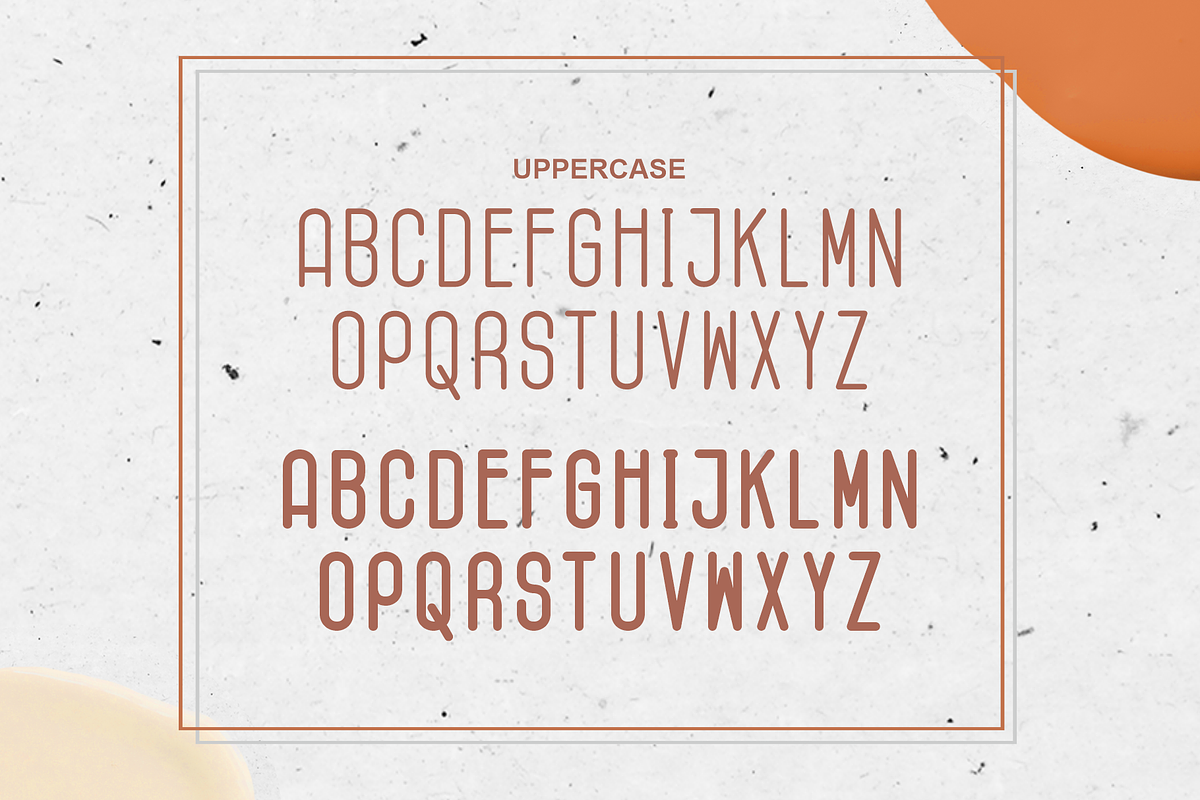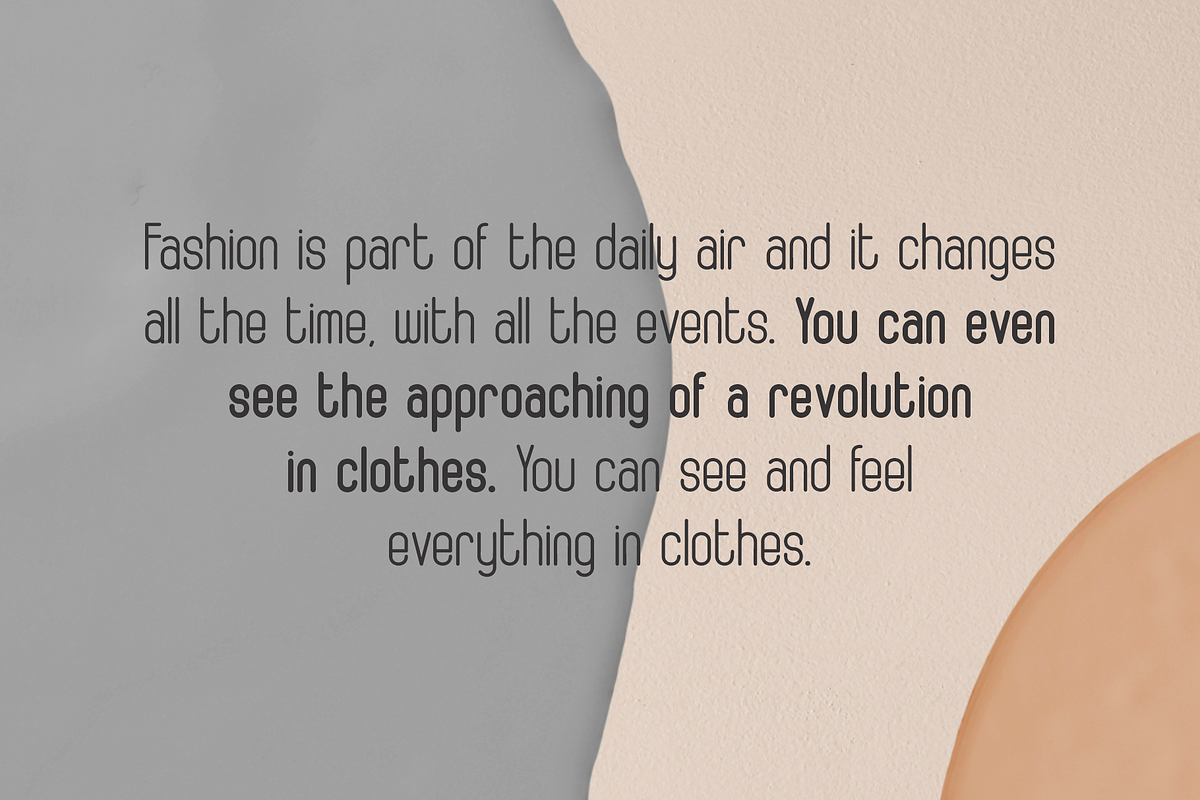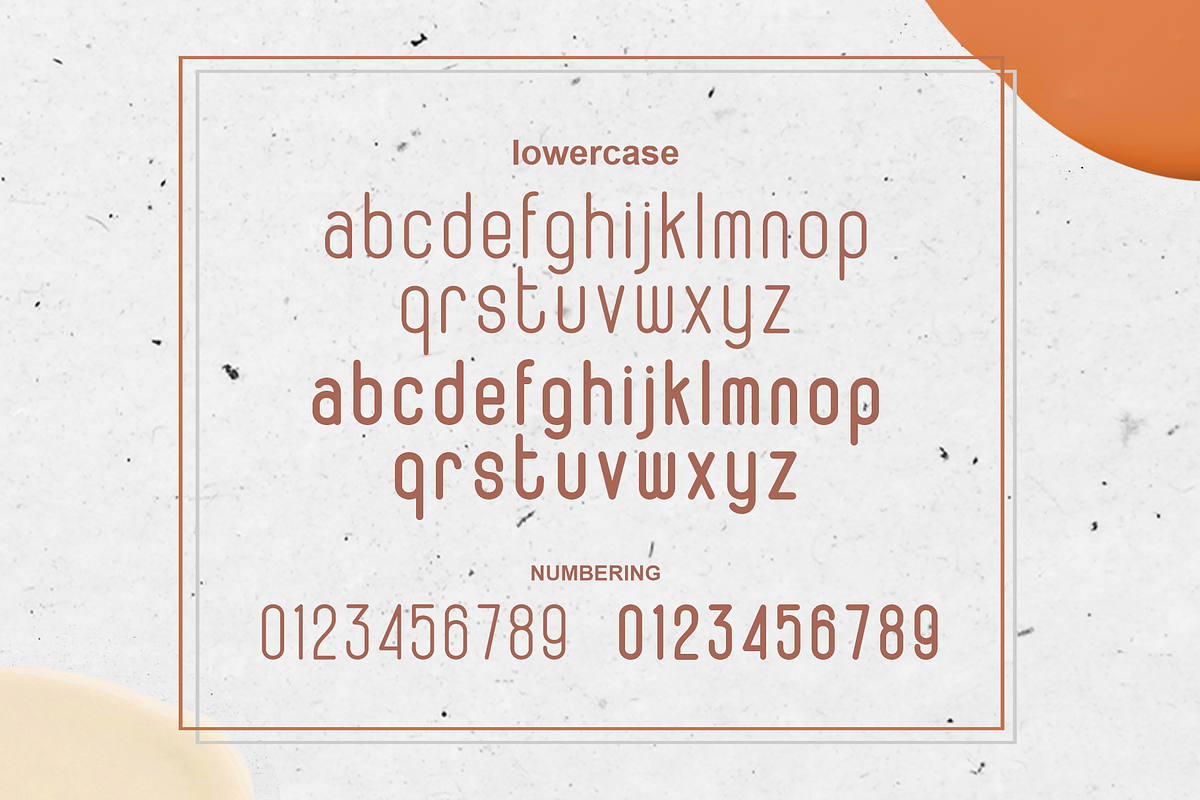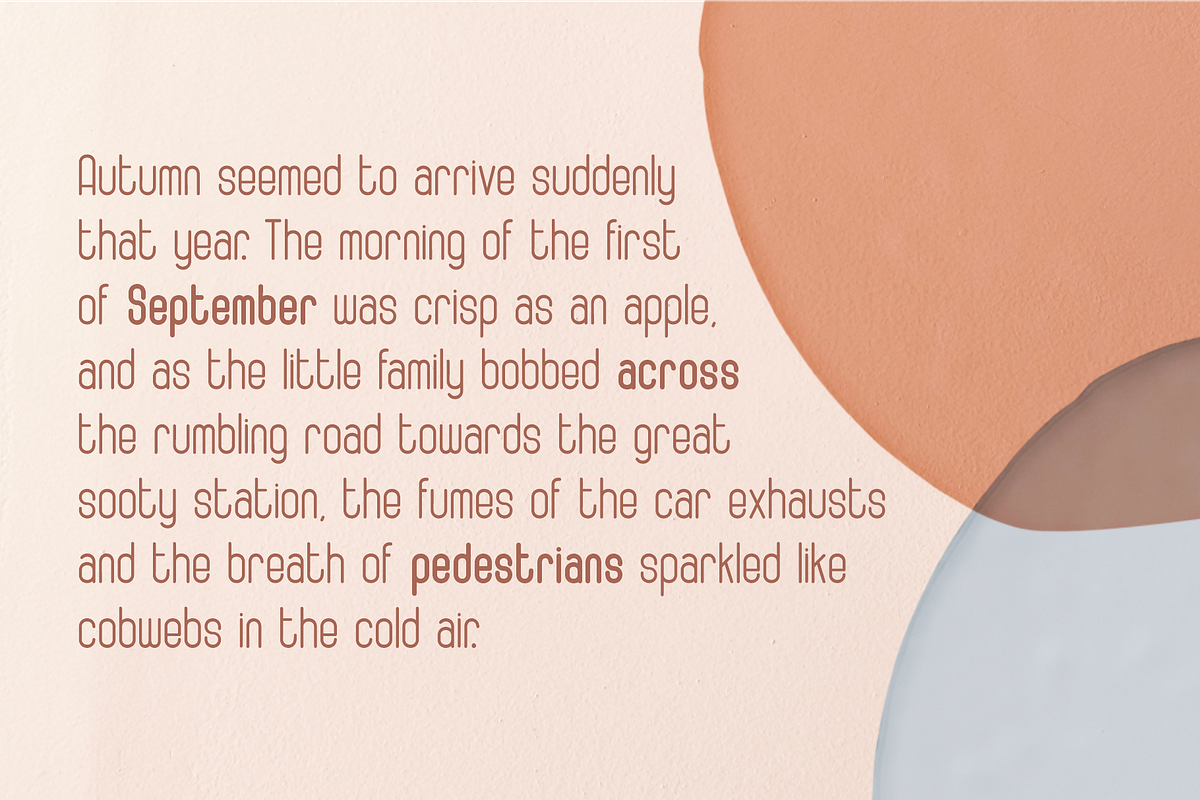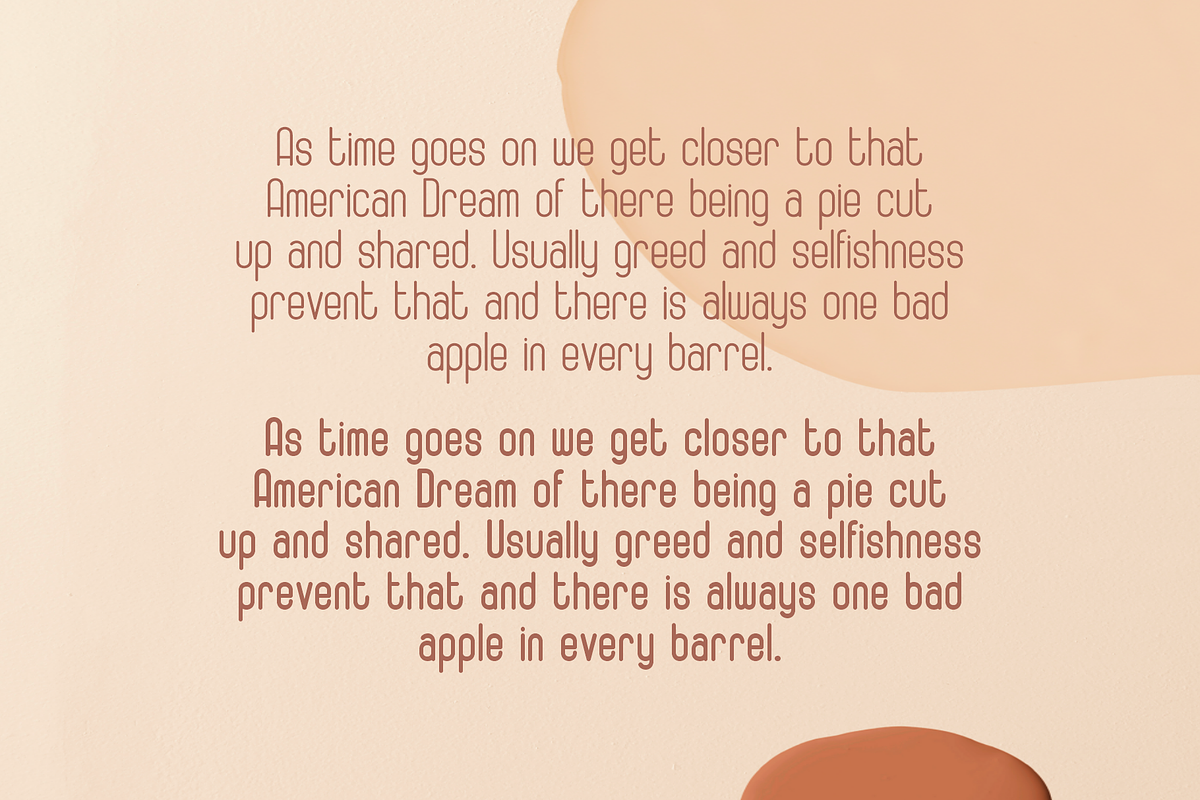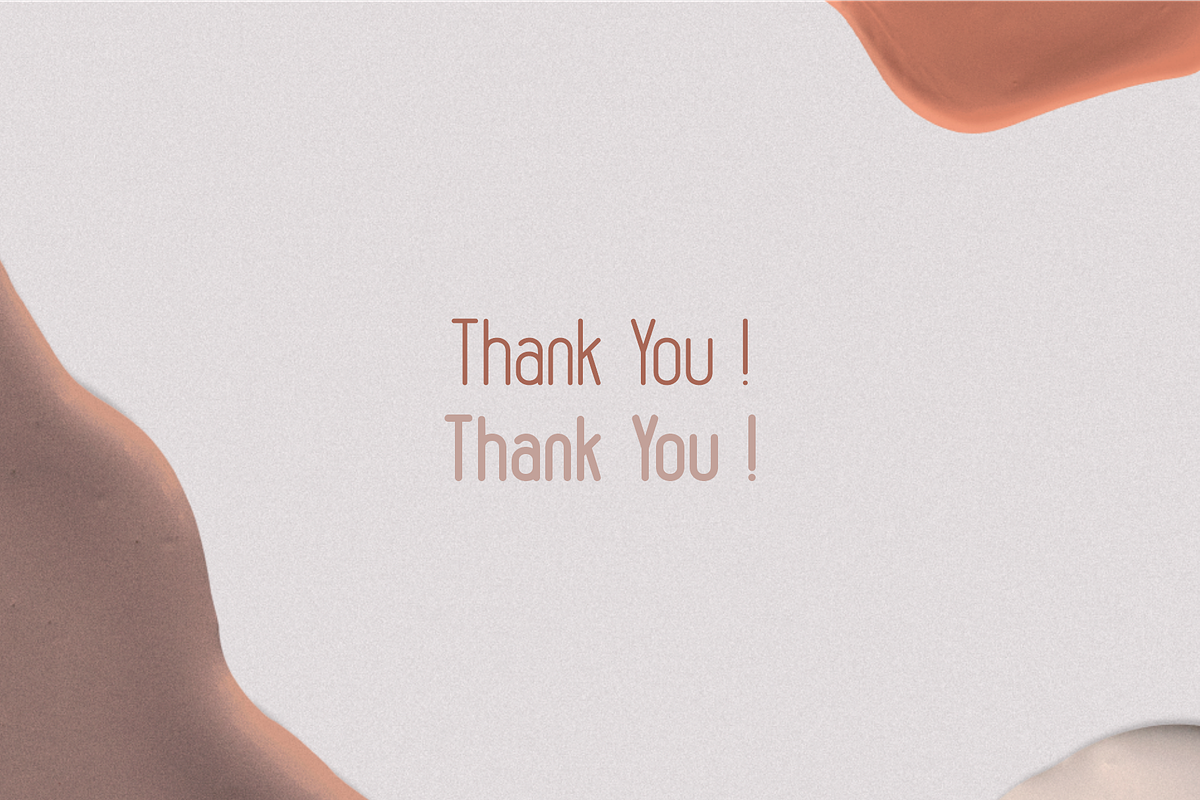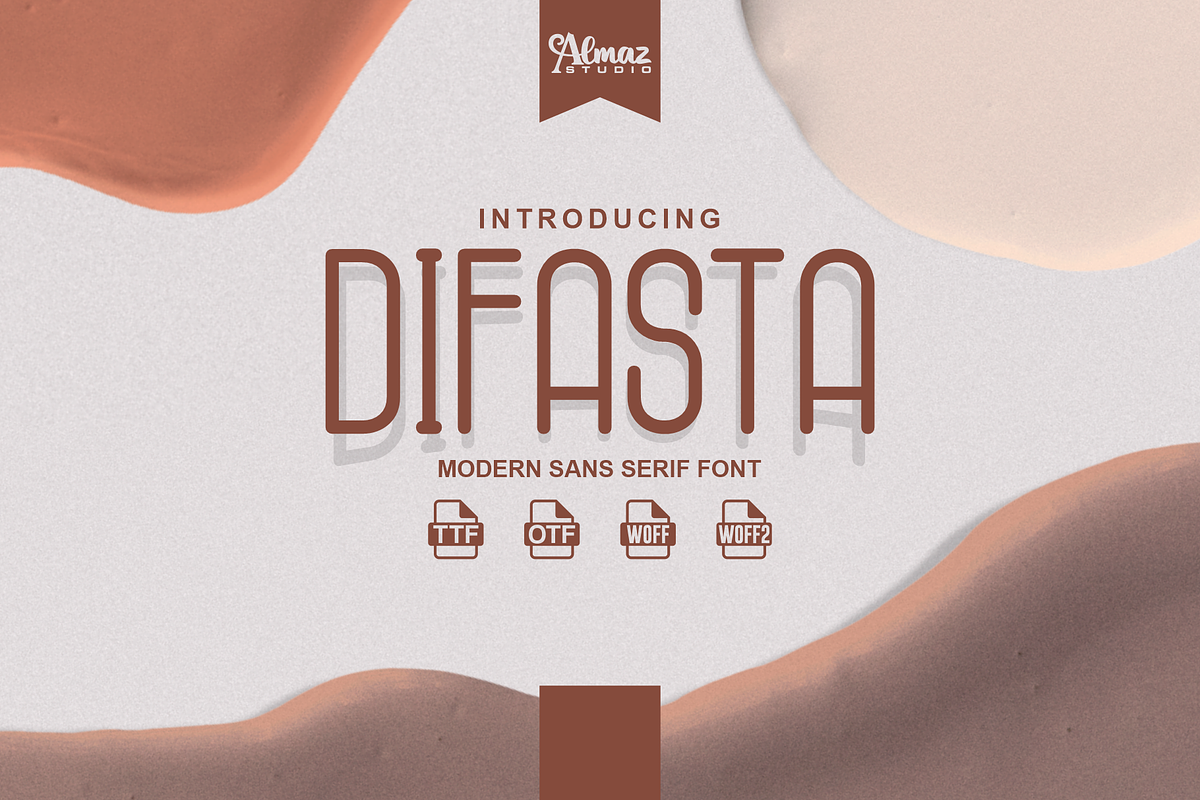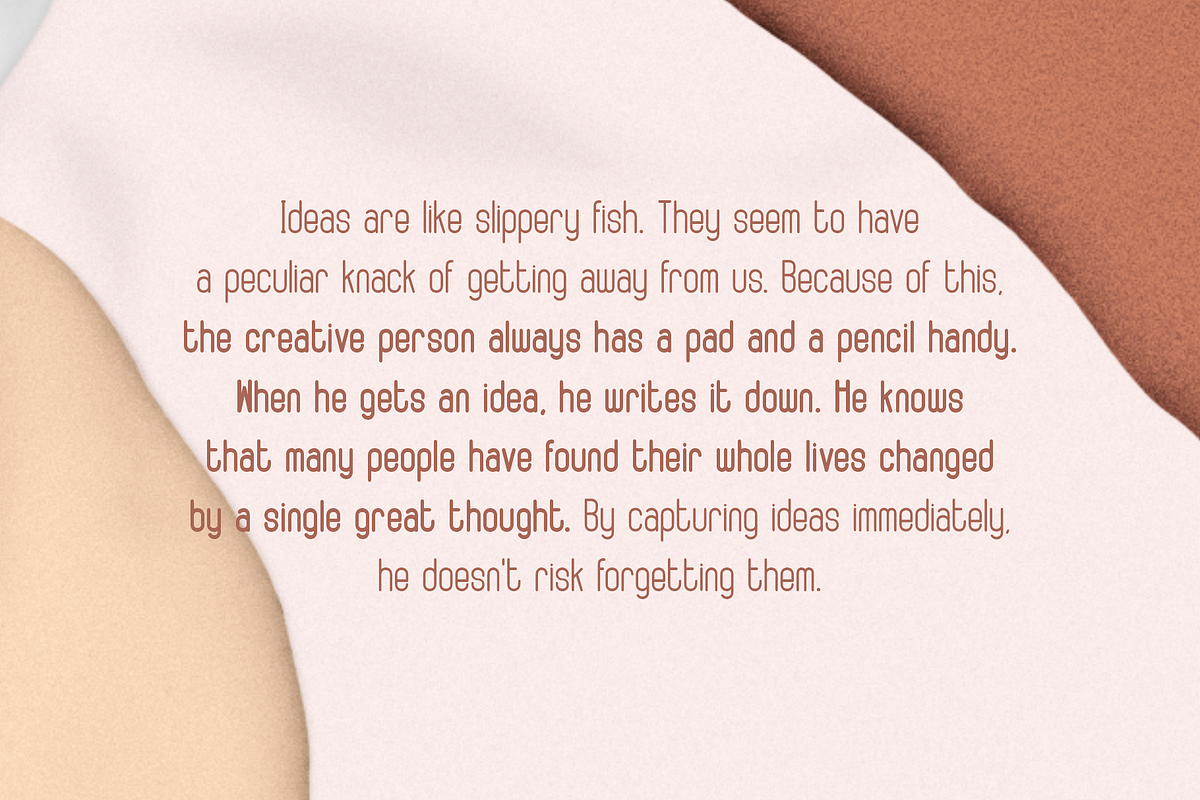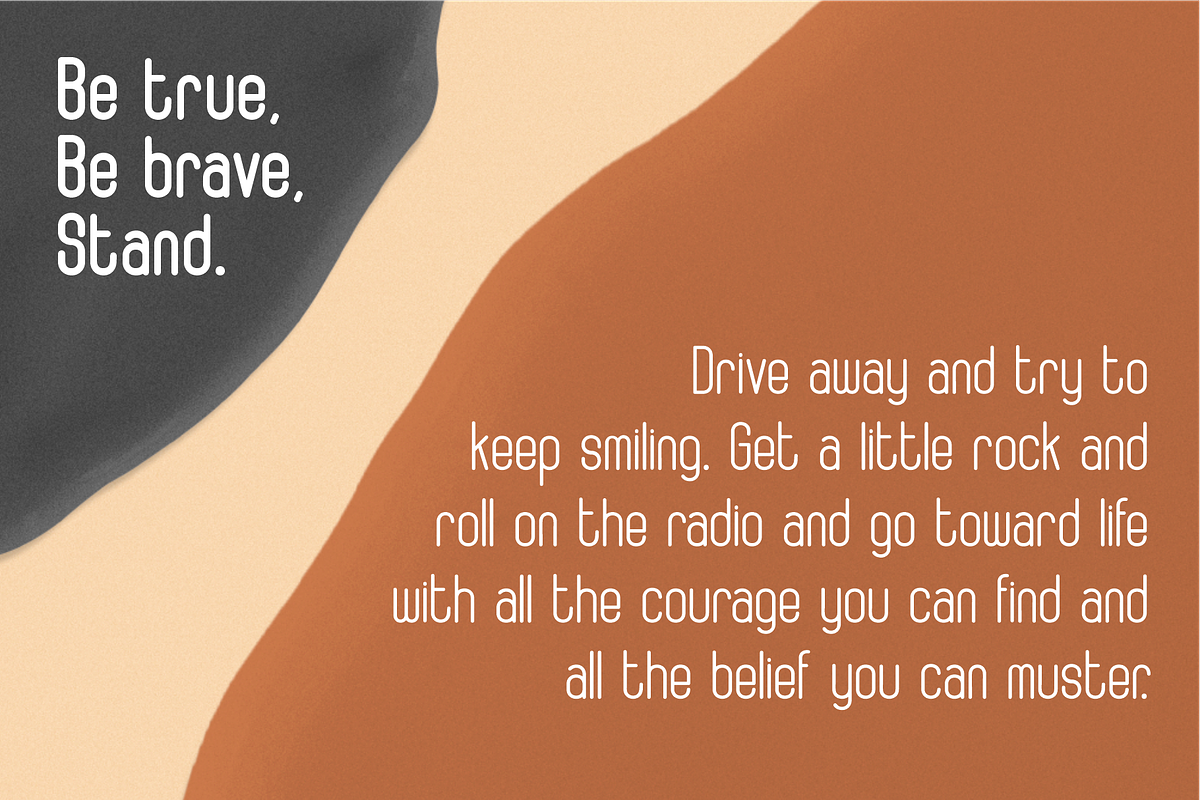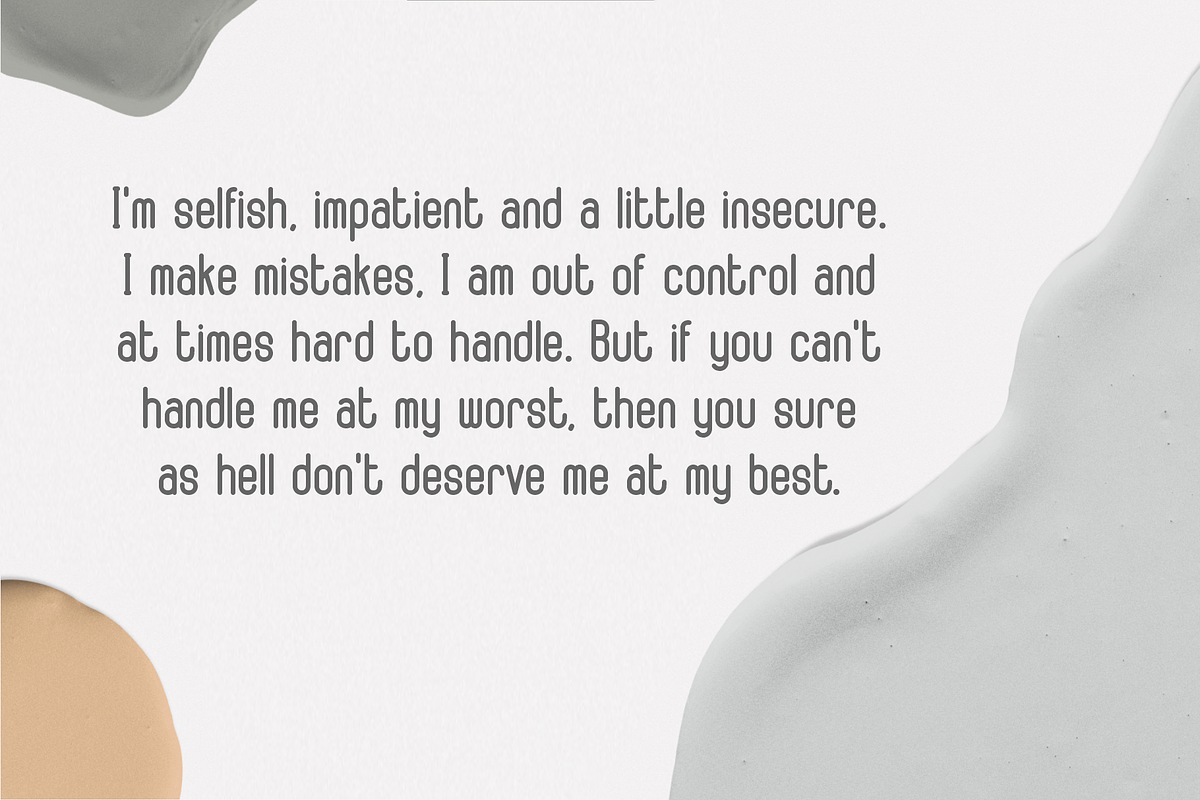
Difasta
Difasta is an ultramodern, ultra compact sans serif typeface. It was designed for maximum compression, allowing you to fit more words in a line than techno typefaces normally allow. Difasta is at the normal typeface compression limit. Crushed is ludicrously concentrated. Difasta almost all current Latin-based languages are supported. This allows you to install the fonts on a computer and use them to create posters, web graphics, game graphics, t-shirts, videos, signs, logos and more.